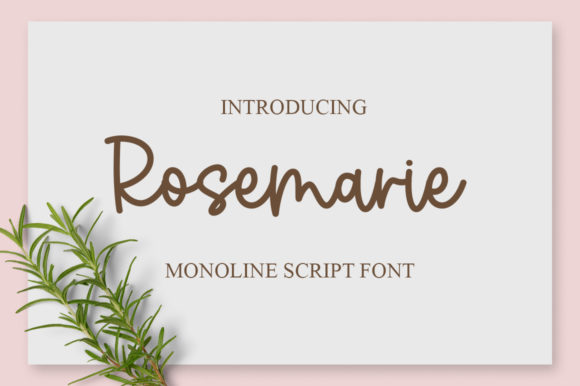
Unleash the Enchantment: Introduce Rosemarie Font, the Epitome of Grace and Beauty
Within the realm of digital artistry, where aesthetics reign supreme, there exists a font that captivates hearts with its intricate charm – Rosemarie Script. A creation of the renowned Graphix Line Studio, this exquisite font family embodies the essence of femininity and elegance.
Born from the union of flowing curves and delicate lines, Rosemarie is a script font that dances across your screen like a gentle breeze, leaving a trail of beauty in its wake. Its graceful glyphs, reminiscent of handwritten poetry, lend an air of sophistication and artistry to your creative projects.
Immerse yourself in the allure of Rosemarie and let its enchanting aura elevate your designs to new heights. This remarkable font is ideally suited for fashion branding, editorial designs, and any endeavor that calls for a touch of elegance and charm.
With Rosemarie as your creative companion, you'll embark on a journey of limitless imagination. Its PUA encoding unlocks a treasure trove of glyphs and swashes, empowering you to effortlessly add depth and character to your designs. Unleash your creativity and let Rosemarie guide you towards masterpieces that leave a lasting impression.